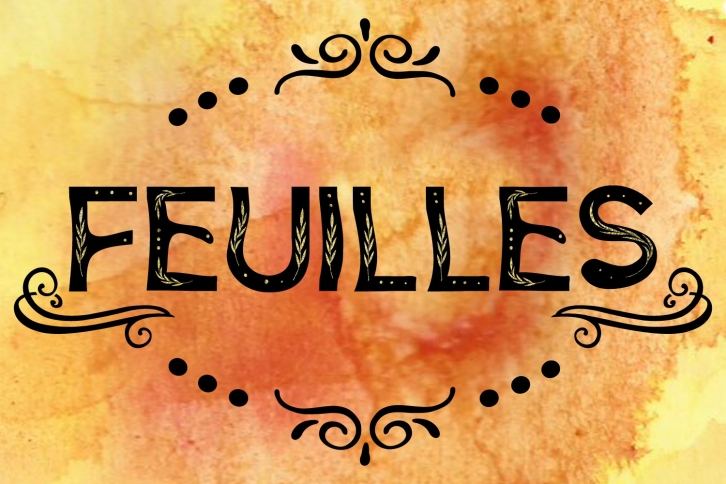
Feuilles is a great font that was designed by Sintegra. Imagine the amount of combinations you can create using this font! The archive is 1.86 MB and it was released on December 10, 2017. Feuilles looks beautiful on wedding invitations, greeting cards, logos, posters, labels, t-shirt designs, logos, business cards and is perfect for use in ink or watercolor works, fashion, magazines, packaging and food menus, children's books and more!